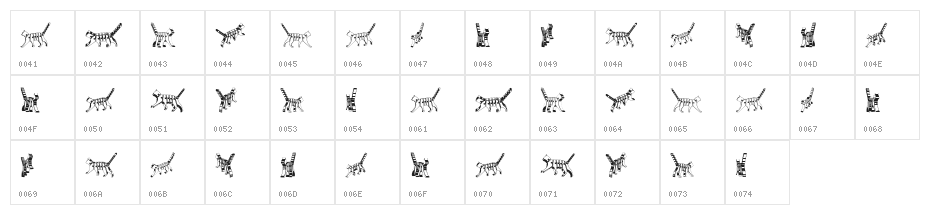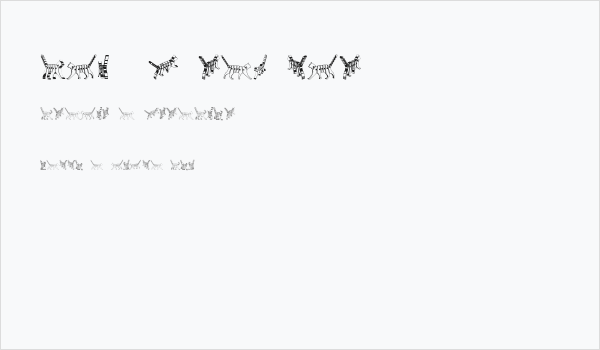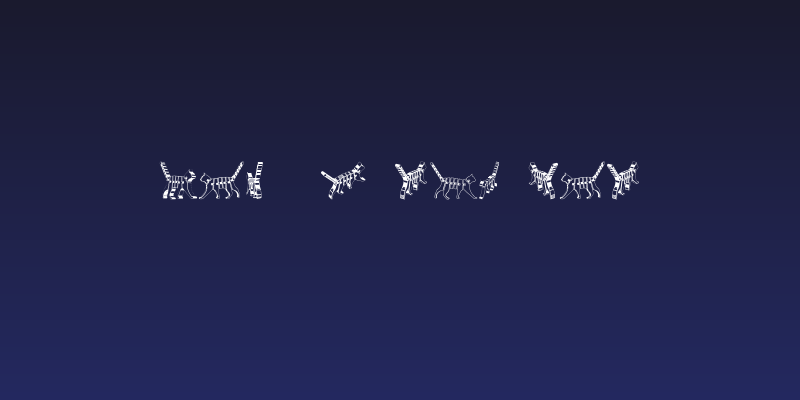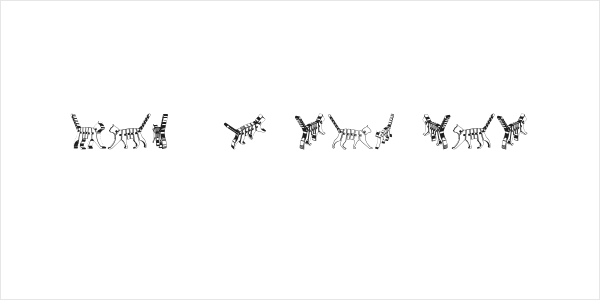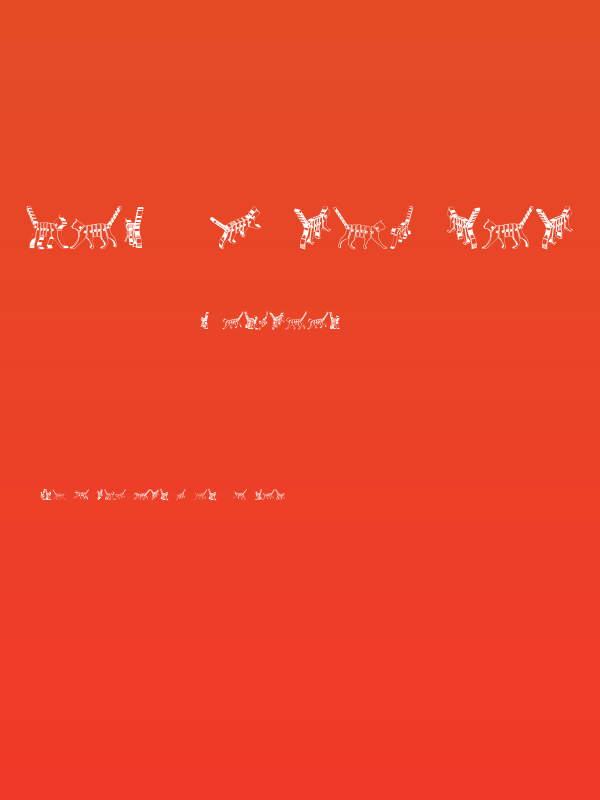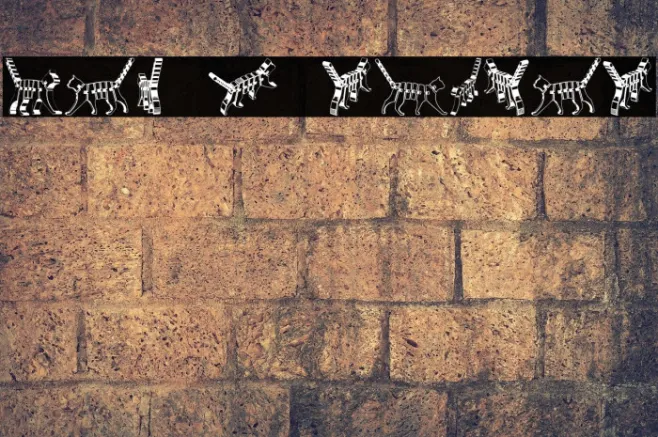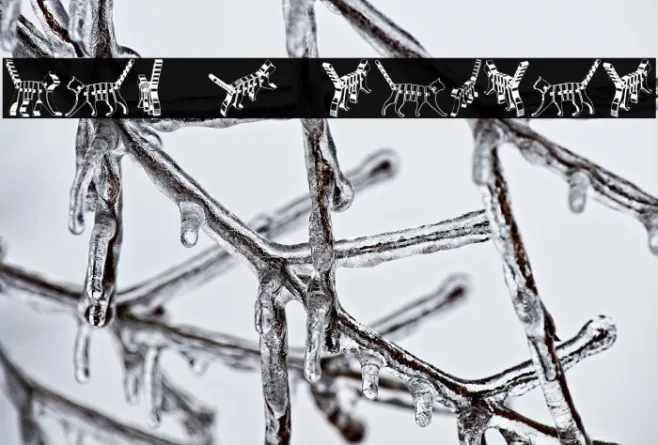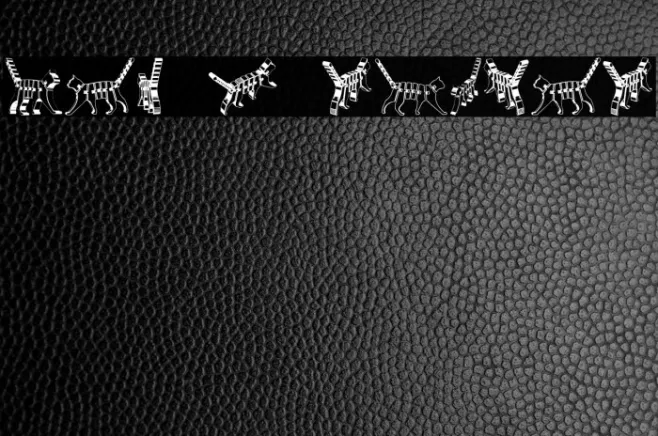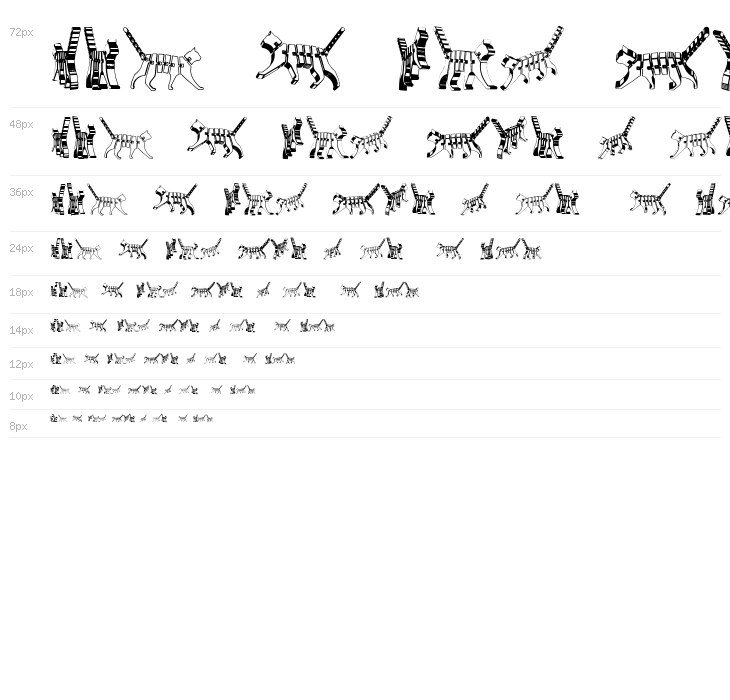
Cat 3D Regular Font
Cat 3D Regular Description
This unique and playful font features a series of cat illustrations, each representing a different character. The design is highly decorative, with each letter and number crafted to resemble a cat in various poses. The style is whimsical and artistic, making it stand out as a creative choice for projects that require a fun and engaging visual element. The characters are detailed, with a 3D effect that adds depth and dimension, enhancing the overall aesthetic. This font is perfect for projects that aim to capture attention and convey a sense of playfulness and creativity.
| Use Case | Logos, Posters, Creative projects |
| Proposed Projects | Ideal for children's books, playful branding, pet-related products, and creative posters. |